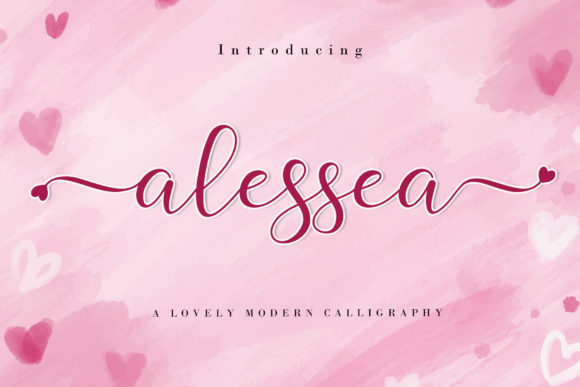
The Sweet Charm of Alessea Font: A Designer’s Delight
I still remember the project that led me to discover Alessea Font. I was working on a wedding invitation design, and my client specifically asked for a romantic, elegant feel. I scoured the internet for the perfect calligraphy font, but nothing seemed quite right. That was until I stumbled upon Alessea – a beautiful, sweet calligraphy typeface that danced along the baseline with a casual yet elegant touch.
An Honest Review of Alessea Font
- ✨ Romantic and sweet calligraphy style that’s perfect for wedding invitations, greeting cards, and other special occasions.
- 🎨 Highly versatile and can be used for a variety of design projects, from digital to print.
While Alessea Font is an excellent choice for many design projects, there are a few things to keep in mind:
- ⚠️ Some users may find the font’s casual, handwritten feel too informal for certain projects.
- 🤔 The font’s dance-like movement along the baseline can make it challenging to use for body text or long blocks of content.
The Backstory of Alessea Font
Alessea Font was designed with the intention of creating a romantic, elegant typeface that’s perfect for special occasions. The designer’s inspiration came from traditional calligraphy and handwritten scripts, with a modern twist. The result is a beautiful, sweet calligraphy font that’s both elegant and approachable.
Q: Is Alessea Font suitable for body text or long blocks of content?
A: While Alessea Font is beautiful, its casual, handwritten feel may not be the best choice for body text or long blocks of content. It’s better suited for titles, headings, or short paragraphs.